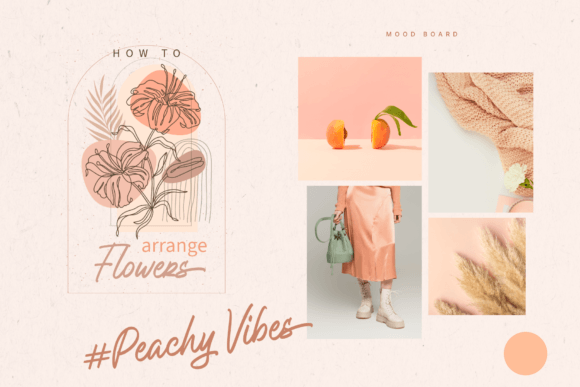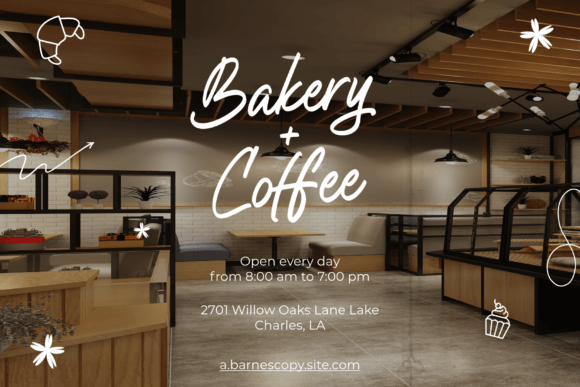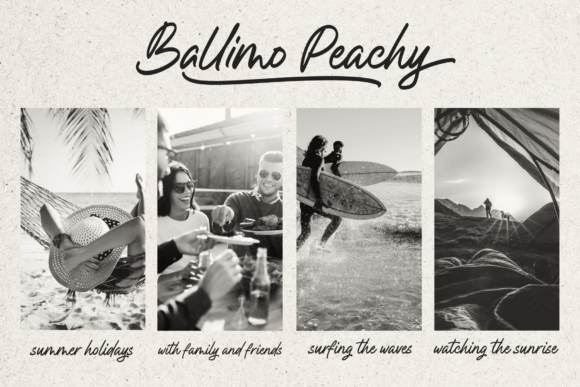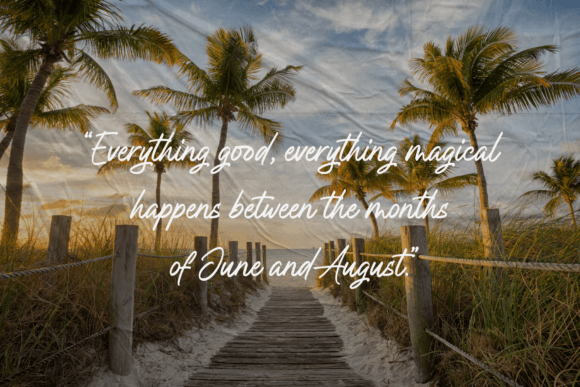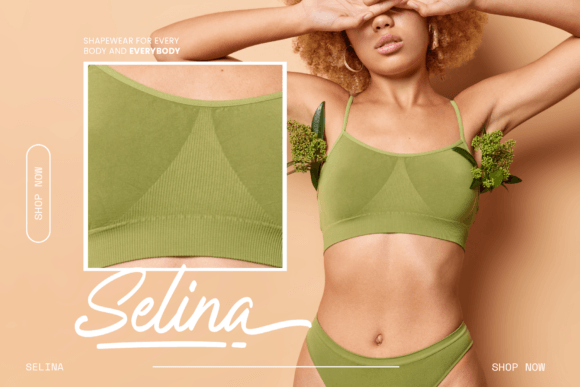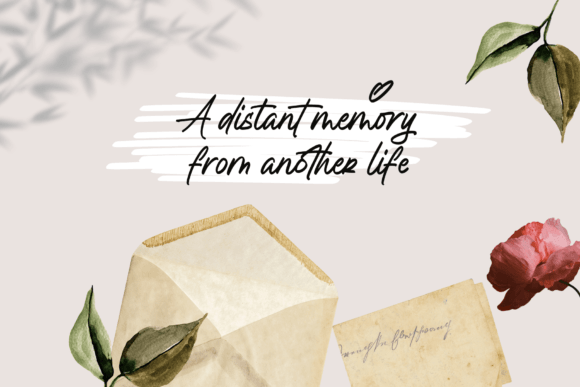
Introducing Ballimo Peachy: The Ultimate Handwritten Font for Sun-Kissed Designs
Are you looking for a font that can transport your design projects to a serene summer wonderland? Look no further than Ballimo Peachy, a delightful handwritten font that embodies the warmth and tranquility of a sun-drenched paradise. With its soft, fluid lines reminiscent of gentle ocean waves and idyllic beach holidays, Ballimo Peachy is the perfect choice for designers and crafters seeking to evoke a sense of relaxed elegance in their work.
The Essence of Ballimo Peachy
Ballimo Peachy is more than just a font – it’s an experience. Its carefully crafted letters and ligatures are designed to drift lazily across your design projects, creating a sense of effortless sophistication. Whether you’re working on a brand identity design, invitation, or greeting card, Ballimo Peachy brings a touch of warm, sun-kissed charm that’s sure to captivate your audience.
Features and Flexibility
One of the standout features of Ballimo Peachy is its versatility. The font comes equipped with an assortment of alternates, swashes, and ligatures, allowing you to curate a personalized aesthetic for your projects with ease. This means you can mix and match different letterforms to create a unique look that reflects your brand’s personality or the tone of your design.
Alternates, Swashes, and Ligatures: The Building Blocks of Elegance
Ballimo Peachy’s extensive feature set includes:
- Alternates: offering a range of alternative letterforms to add visual interest and variation to your designs.
- Swashes: elegant flourishes that can be used to add a touch of sophistication to your typography.
- Ligatures: special character combinations that create a seamless, connected look.
Perfect Applications for Ballimo Peachy
So, where can you use Ballimo Peachy to make an impact? The possibilities are endless, but here are some ideas to get you started:
- Invitations: Add a touch of handwritten elegance to your wedding invitations, birthday party invites, or baby shower announcements.
- Greeting Cards: Create warm, personalized greetings for special occasions like holidays, birthdays, or thank-you notes.
- Brand Identity: Use Ballimo Peachy to develop a unique brand voice and aesthetic that speaks to your customers on a personal level.
- Packaging: Add a touch of whimsy and charm to your product packaging with Ballimo Peachy’s soft, fluid lines.
Why Choose Ballimo Peachy?
In a world where digital designs can sometimes feel cold and impersonal, Ballimo Peachy offers a refreshing alternative. This beautiful handwritten font allows you to:
- Stand out: With its unique, sun-kissed charm, Ballimo Peachy helps your designs cut through the noise and capture attention.
- Connect with your audience: By evoking a sense of warmth and tranquility, Ballimo Peachy helps you build a deeper connection with your audience.
- Effortlessly marry style and charm: Ballimo Peachy brings together the best of both worlds – casual charm and sophisticated style – making it the perfect choice for designers seeking to create beautiful, engaging designs.
Ballimo Peachy is more than just a font – it’s a gateway to a world of sun-kissed elegance and sophistication. With its soft, fluid lines, extensive feature set, and versatility, this beautiful handwritten font is the perfect choice for designers and crafters seeking to infuse their projects with a sense of relaxed, stylish charm. So why wait? Immerse your design projects in the warmth and tranquility of Ballimo Peachy and watch your designs come alive with a sense of effortless sophistication.